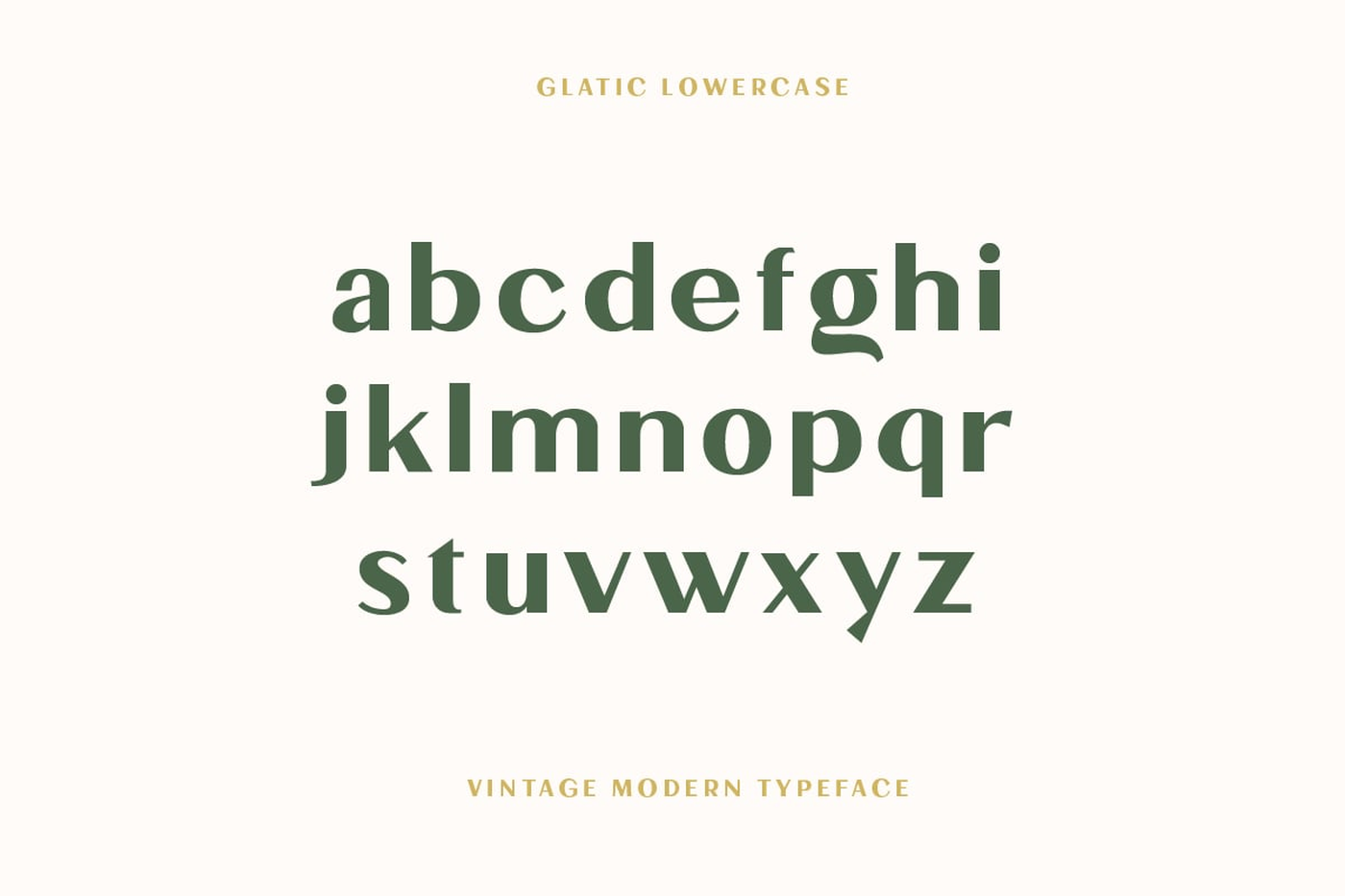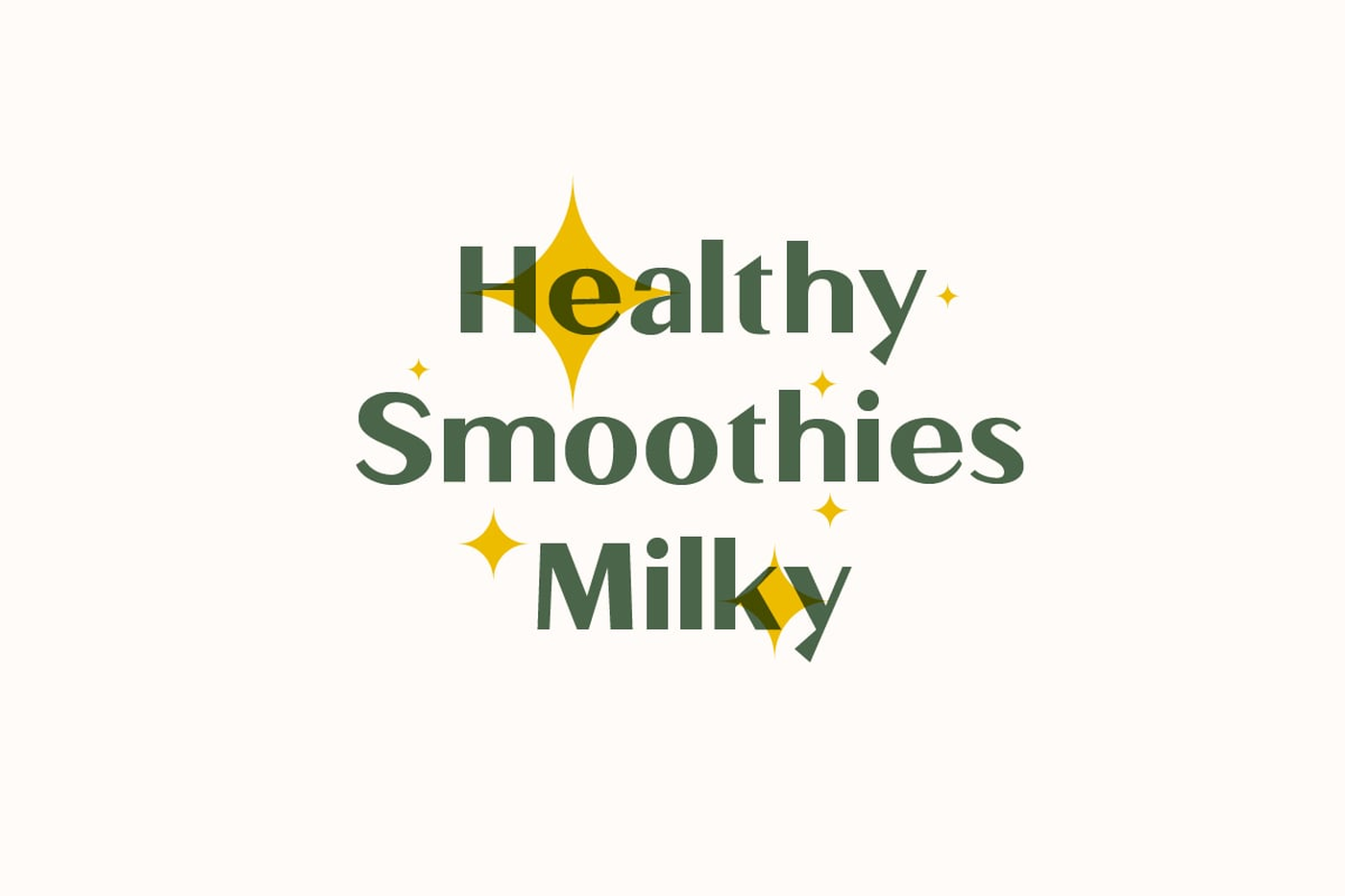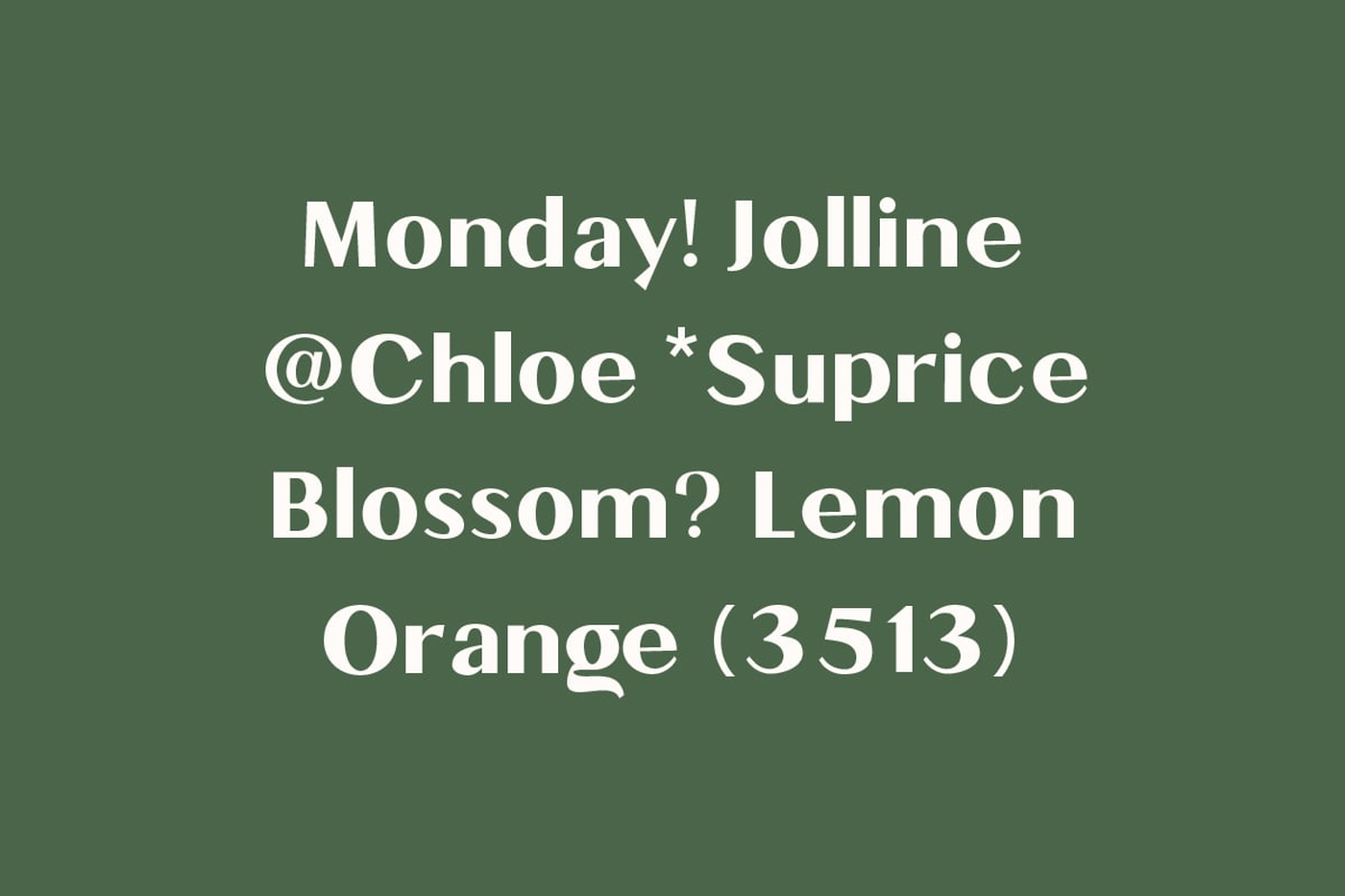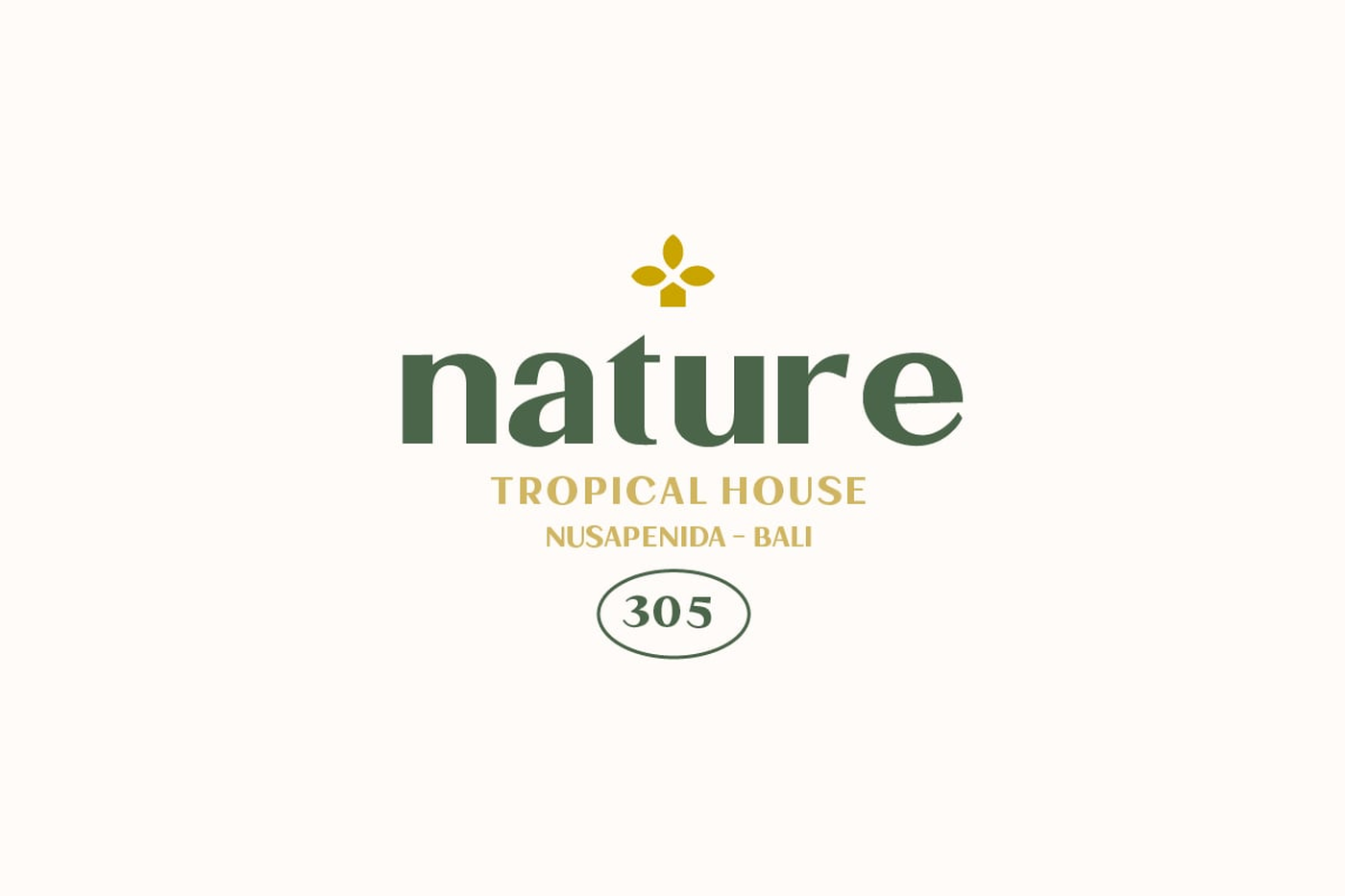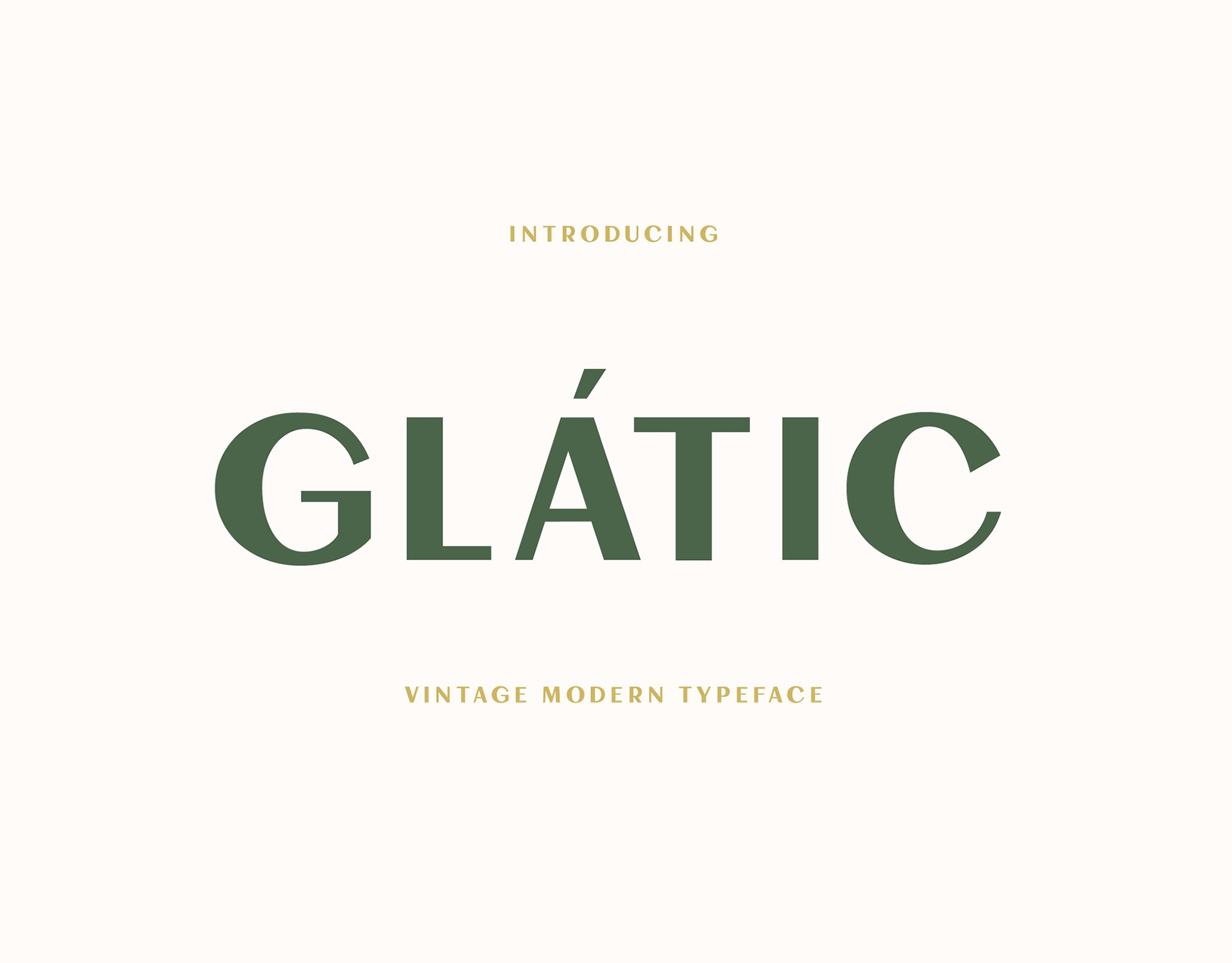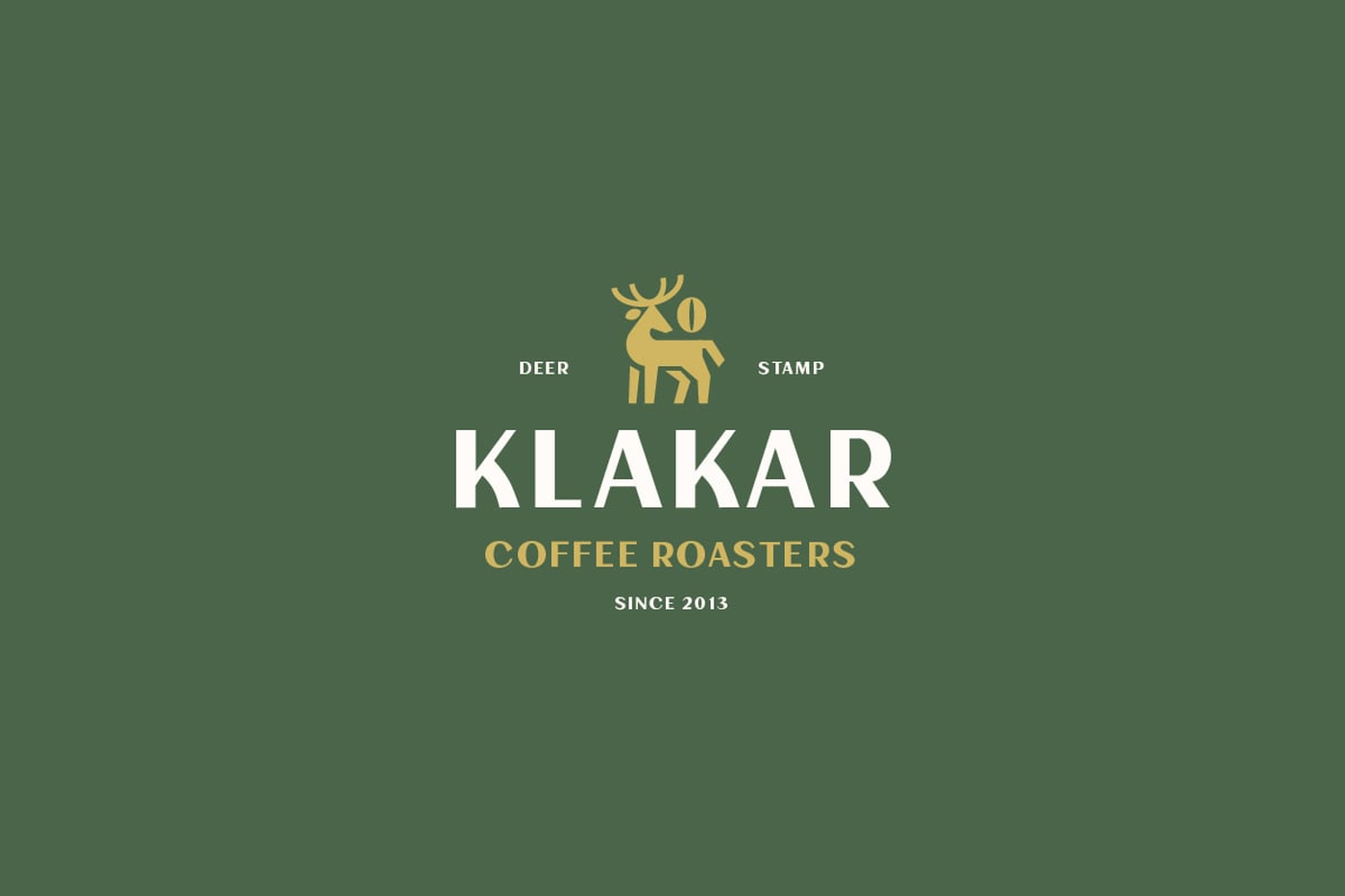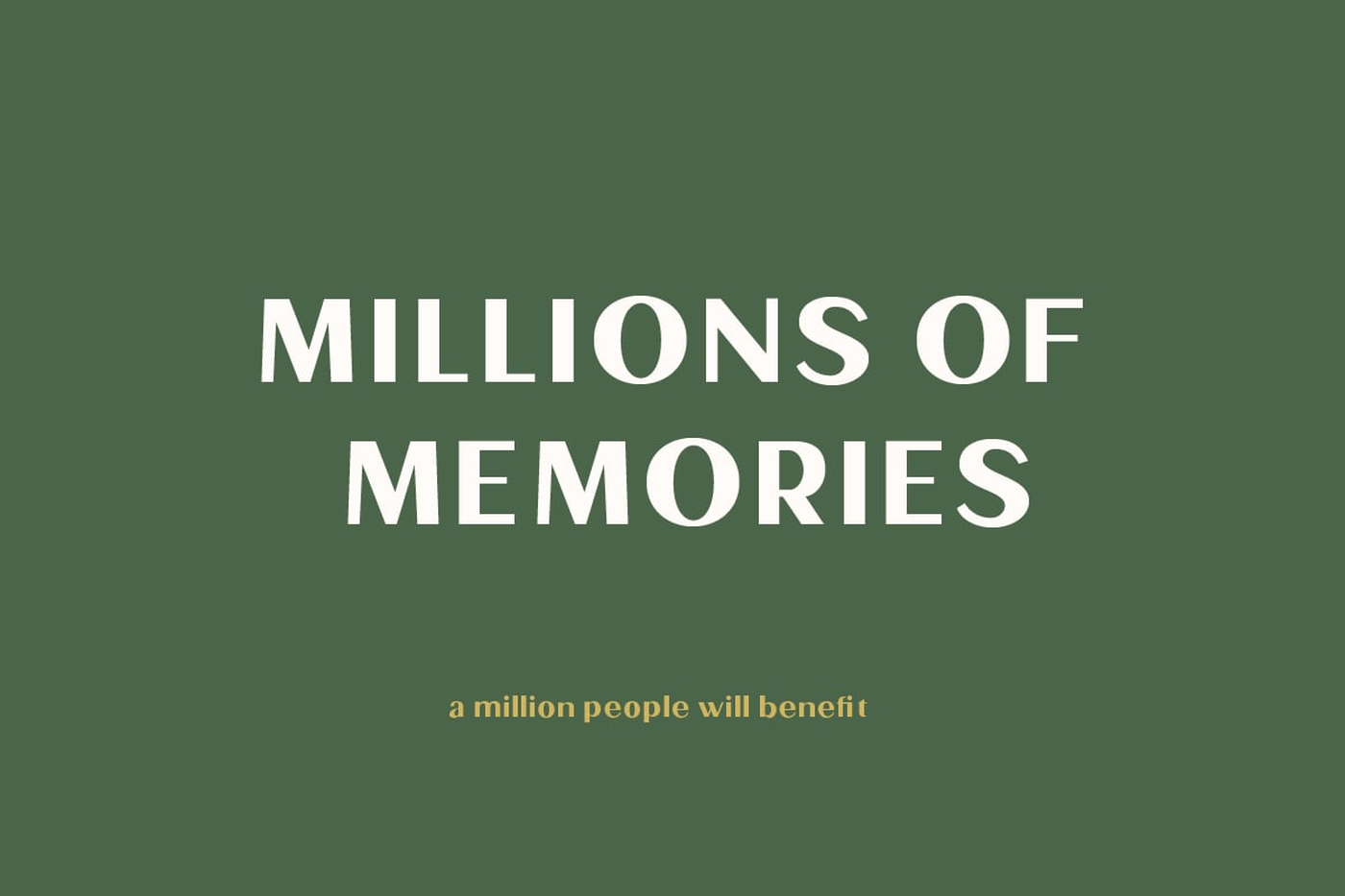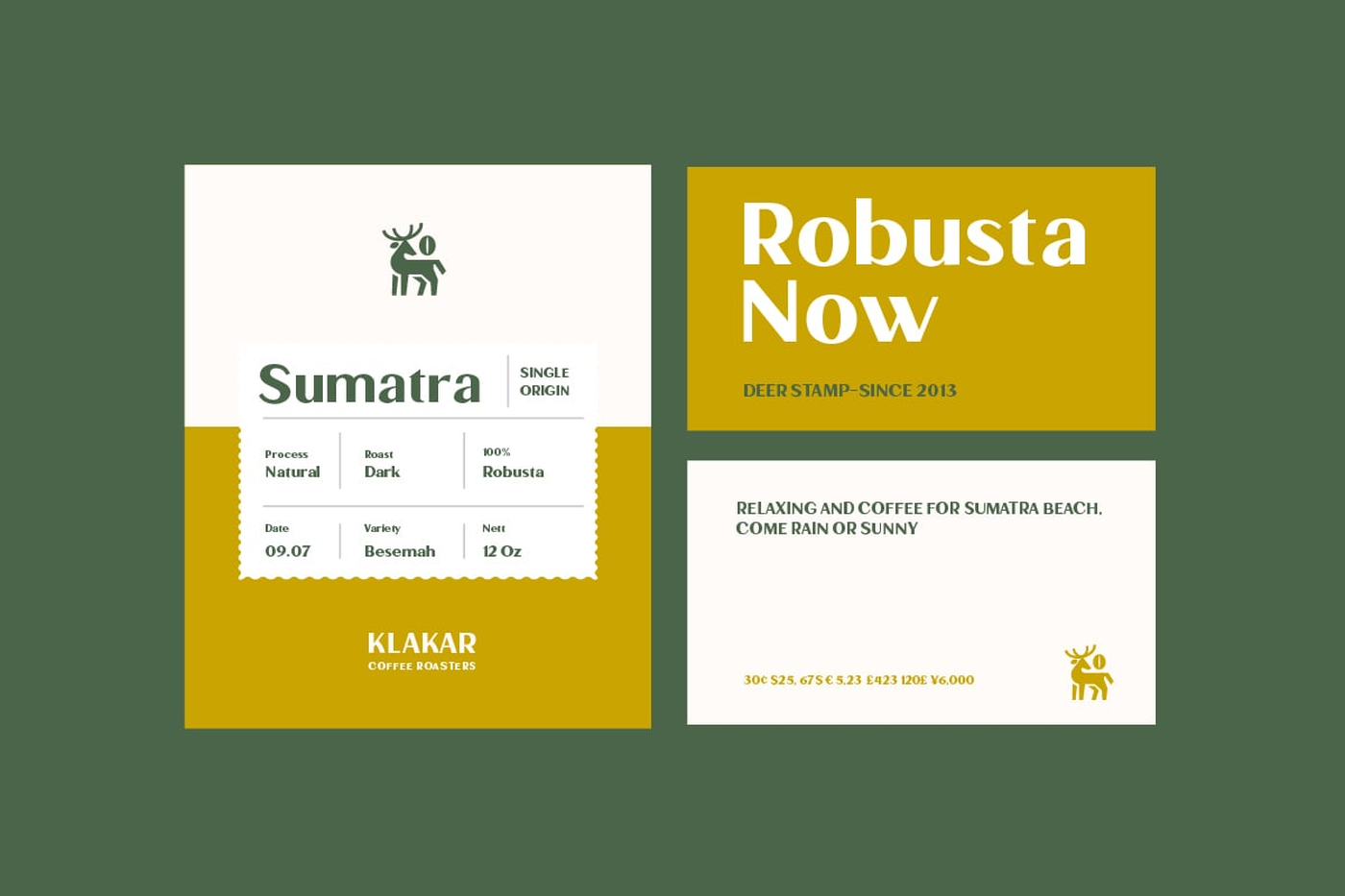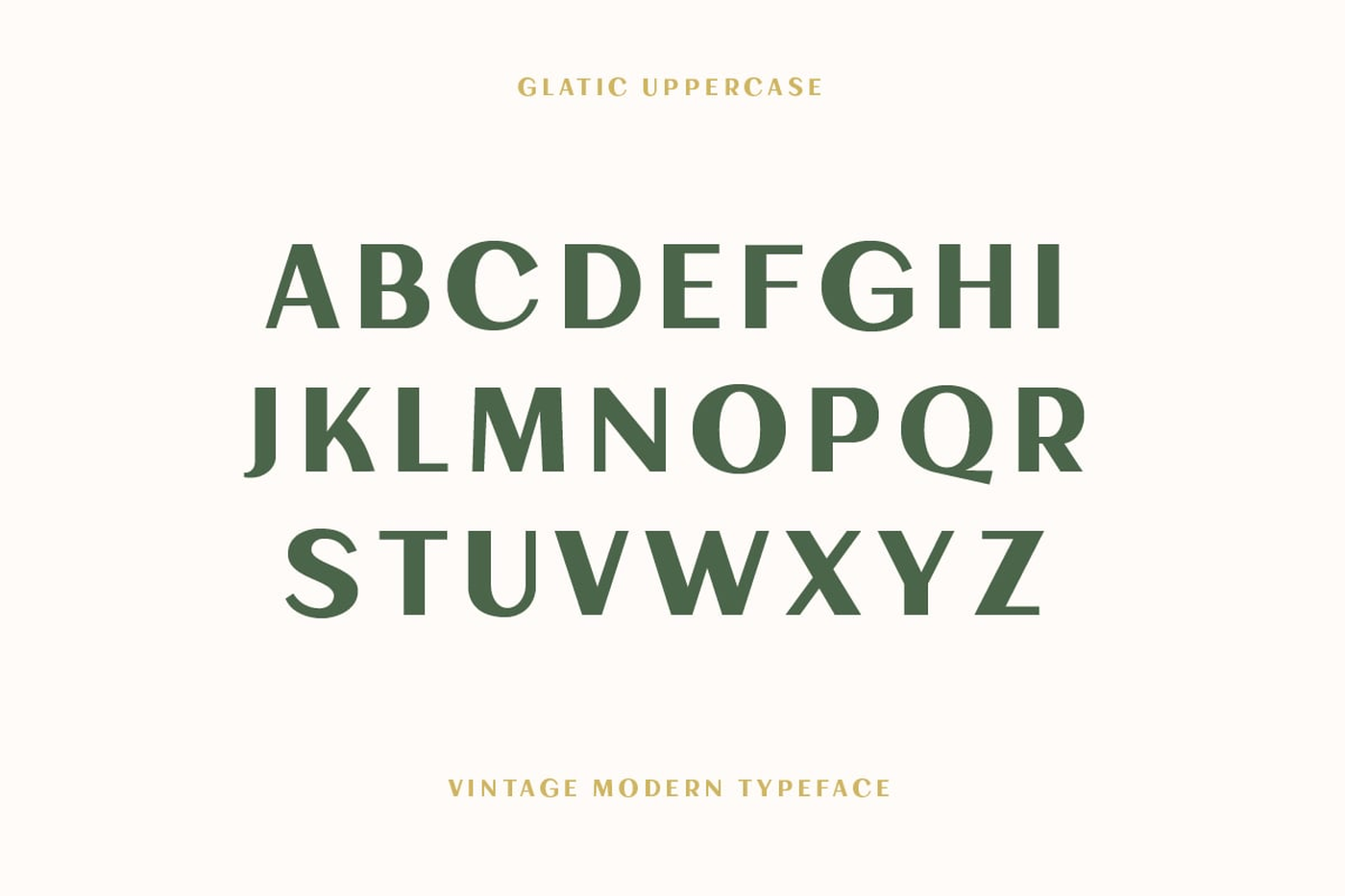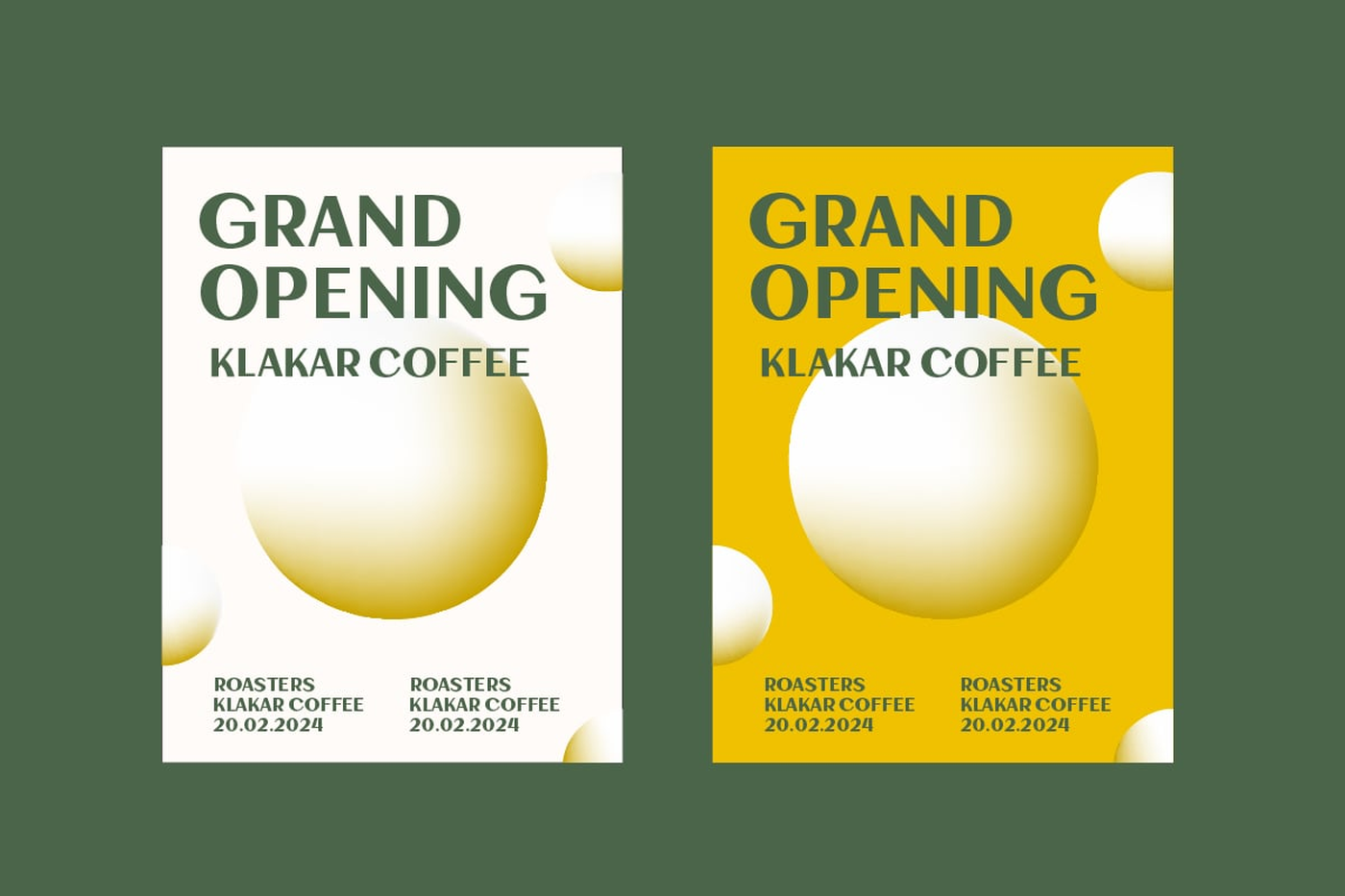
Glatic - Vintage Modern Font
Glatic is a fancy bold font. Its unique construction is inspired by nature and all things beautiful. It's meant for graphic designers and typography professionals to get more done with style in mind! This font will go well with logos, headlines, titles, and minimal layouts. Recommended use Play with your letter spacing to add more class to your designs.
Designer: Yukita Creative
Font: Glatic